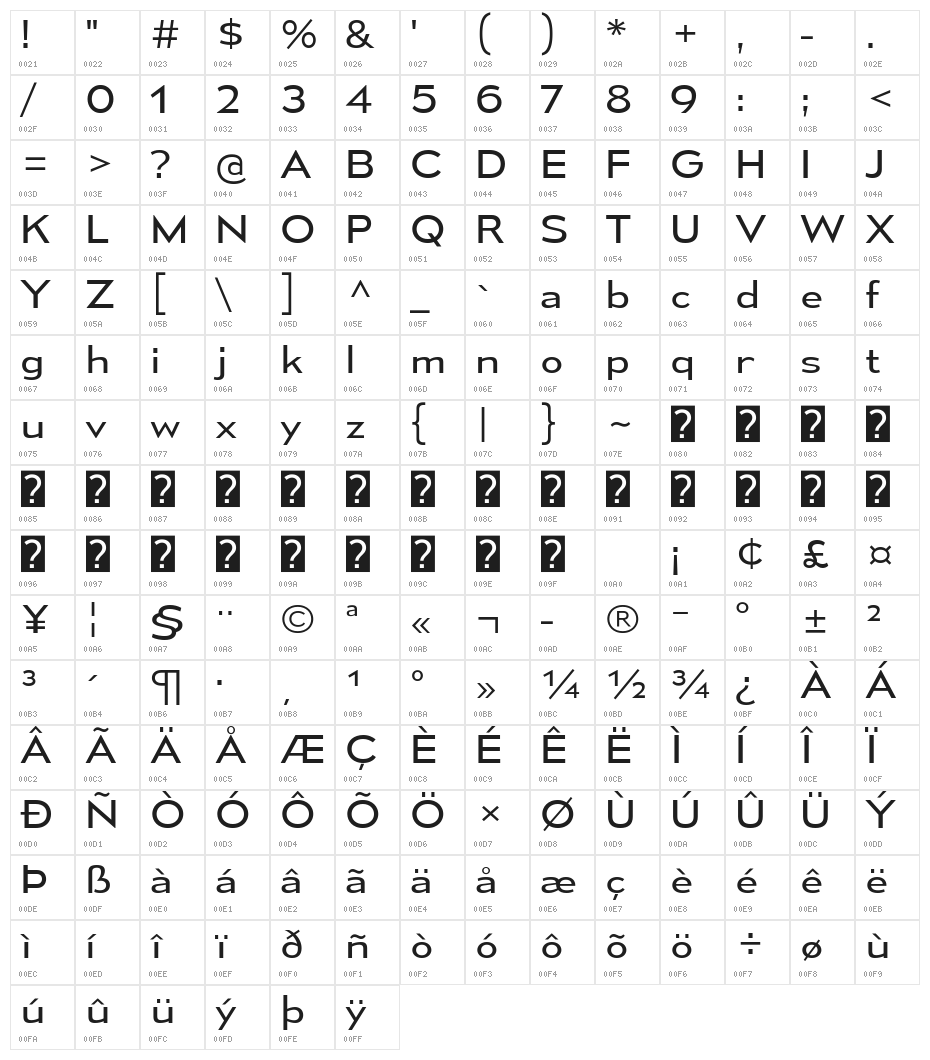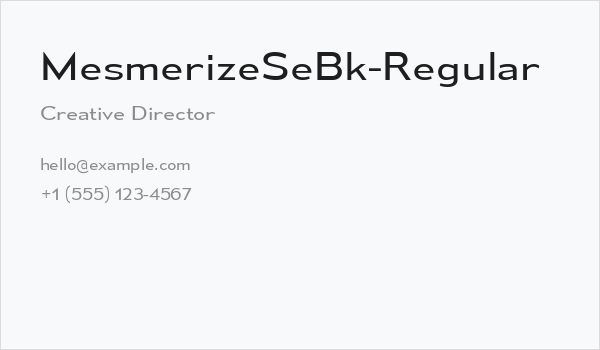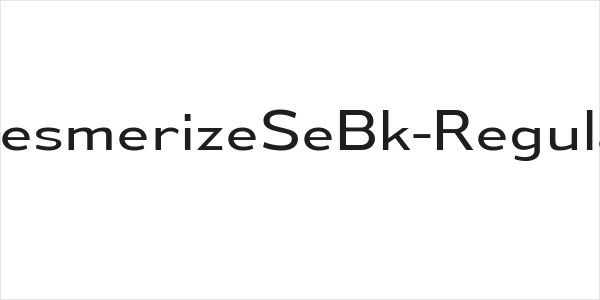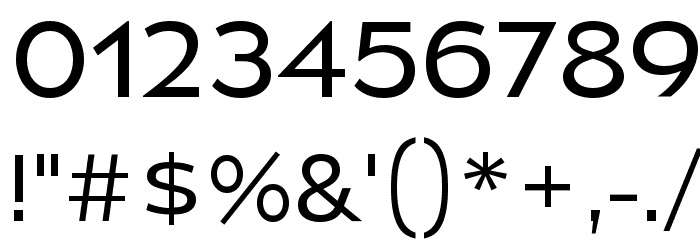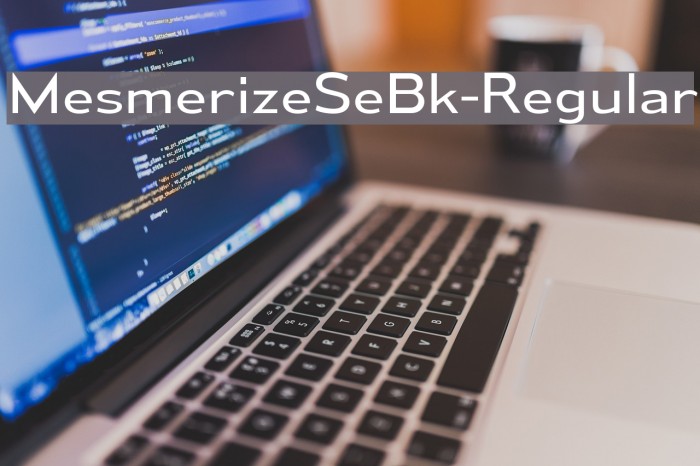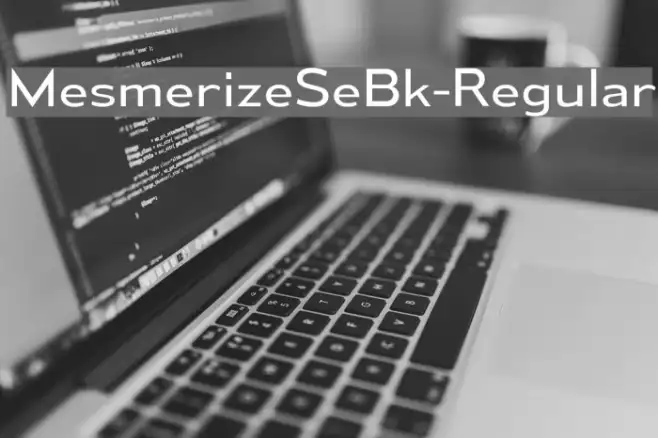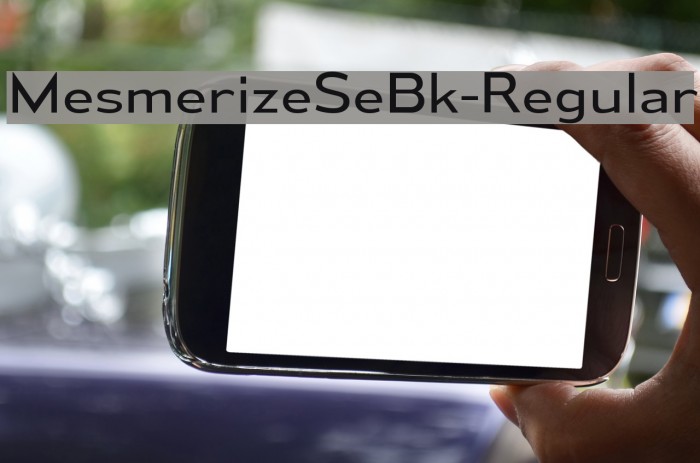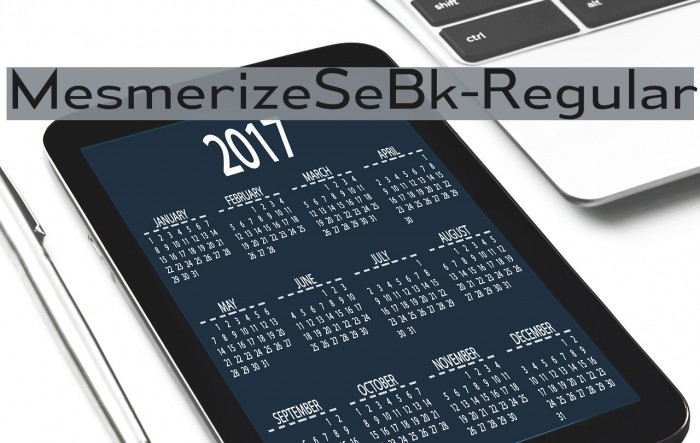
MesmerizeSeBk-Regular Font
MesmerizeSeBk-Regular Description
This font features a clean and modern sans-serif design with geometric influences. The characters are well-balanced with a uniform stroke width, providing a sleek and professional appearance. The uppercase letters are bold and assertive, while the lowercase letters maintain a friendly and approachable feel. The numerals are clear and easy to read, making them suitable for various applications. The special characters are distinct and well-integrated into the overall design, ensuring versatility in usage. This font is ideal for digital and print media, offering a contemporary look that is both stylish and functional.
| Proposed Projects | Ideal for branding, web design, advertising, and editorial layouts. |